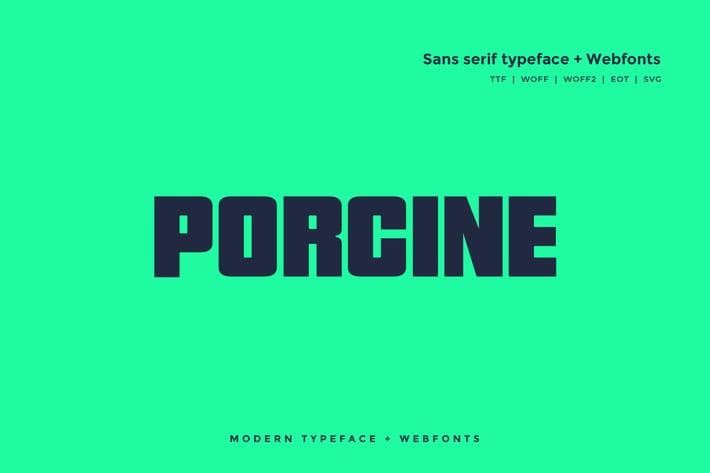
Porcine - Modern typeface + WebFont
Porcine Sans typeface
Porcine sans is a modern Sans Serif typeface very much suitable for Posters, headlines, Block letter, Subheading, Logo Designs, Big Banners, Web designs. Classic & Decorative Typography Web Designs.
Font Designed and Crafted by Michel lona, Distributed by Webhance Studio.